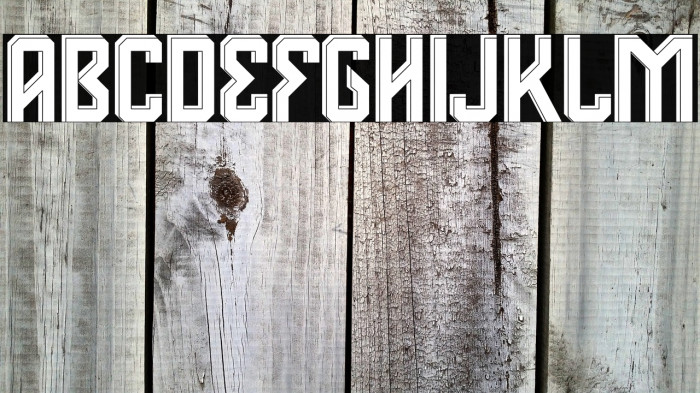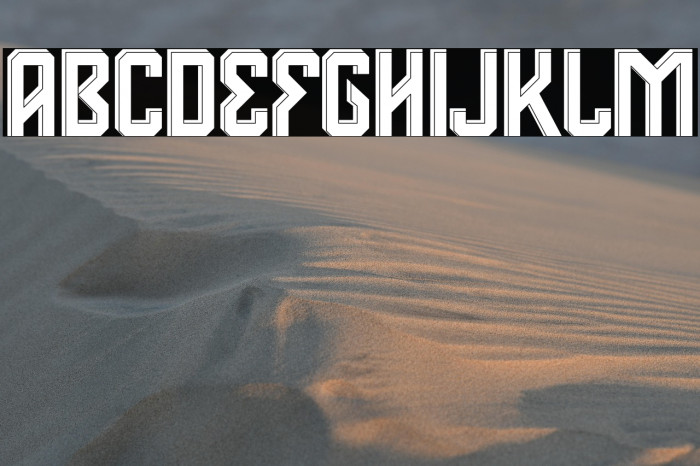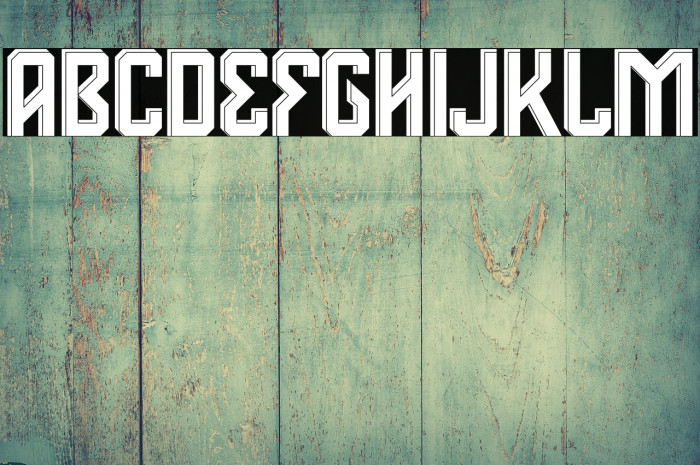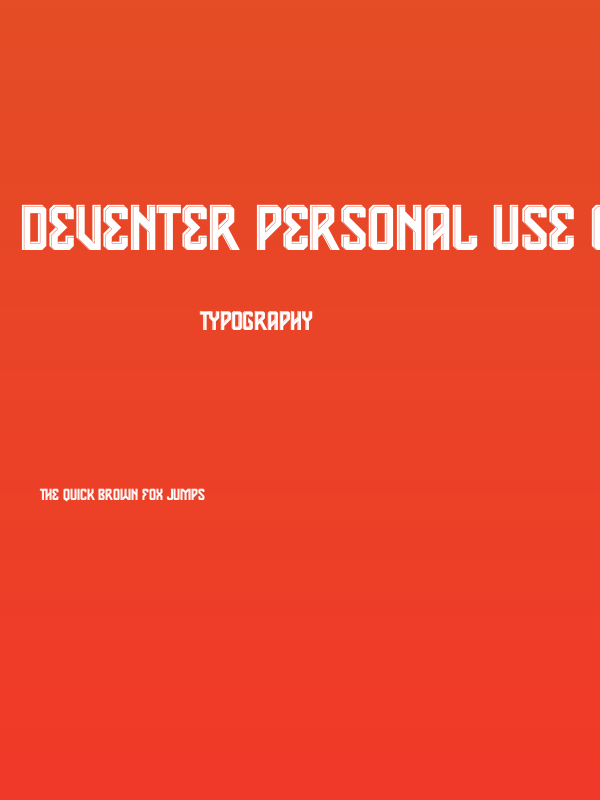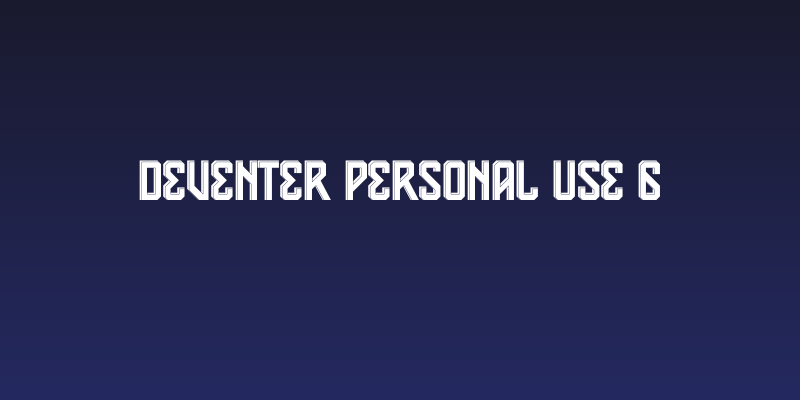
Deventer PERSONAL USE 6 Font
Deventer PERSONAL USE 6 Description
This font features a bold and geometric design with a strong presence. The characters are constructed with thick, angular lines and sharp edges, giving it a modern and industrial feel. The uppercase and lowercase letters maintain a consistent style, with a uniform height and width that enhances readability. The numerals and special characters are designed to match the overall aesthetic, ensuring a cohesive look across all text. This font's unique style makes it stand out, making it ideal for attention-grabbing headlines and titles.
| Proposed Projects | Ideal for use in branding, posters, headlines, and any project requiring a strong, modern aesthetic. |